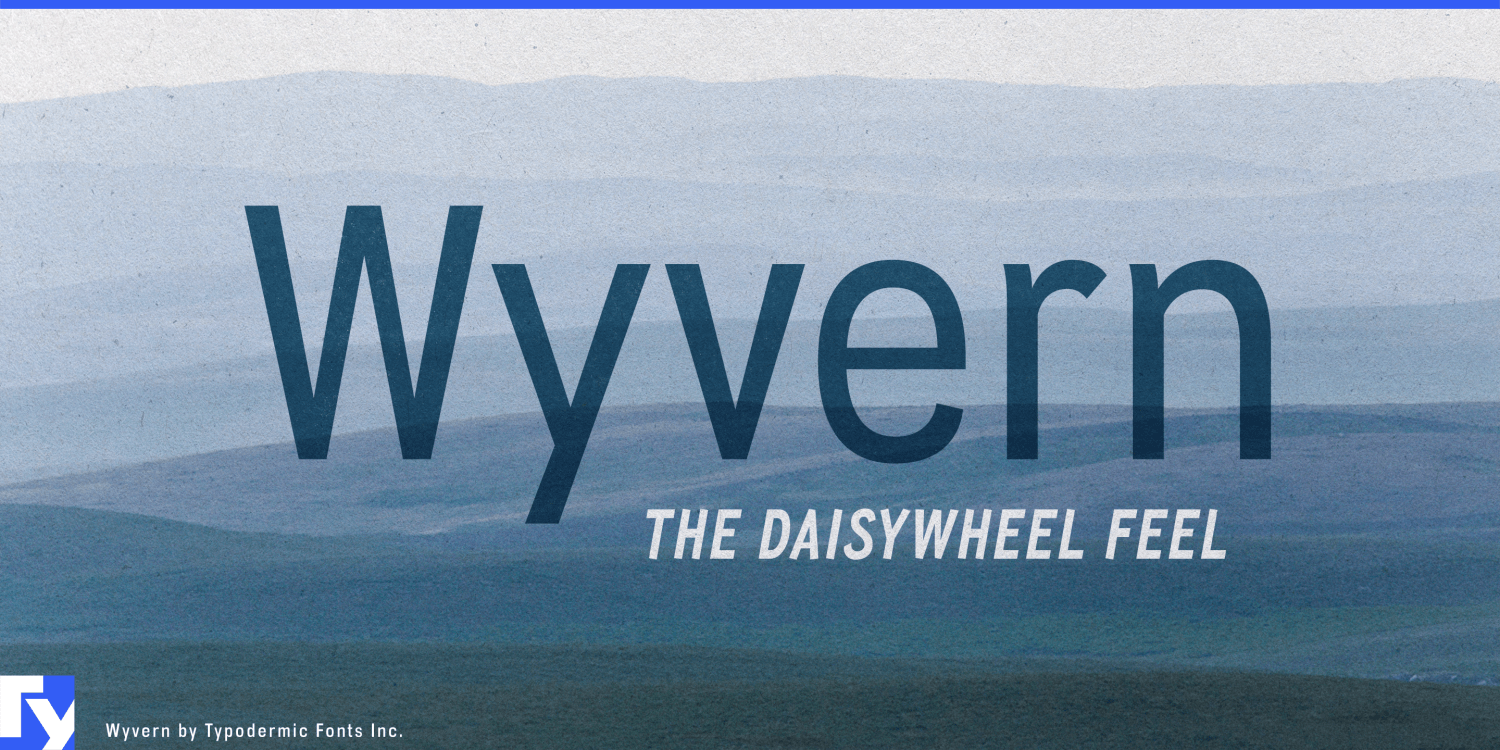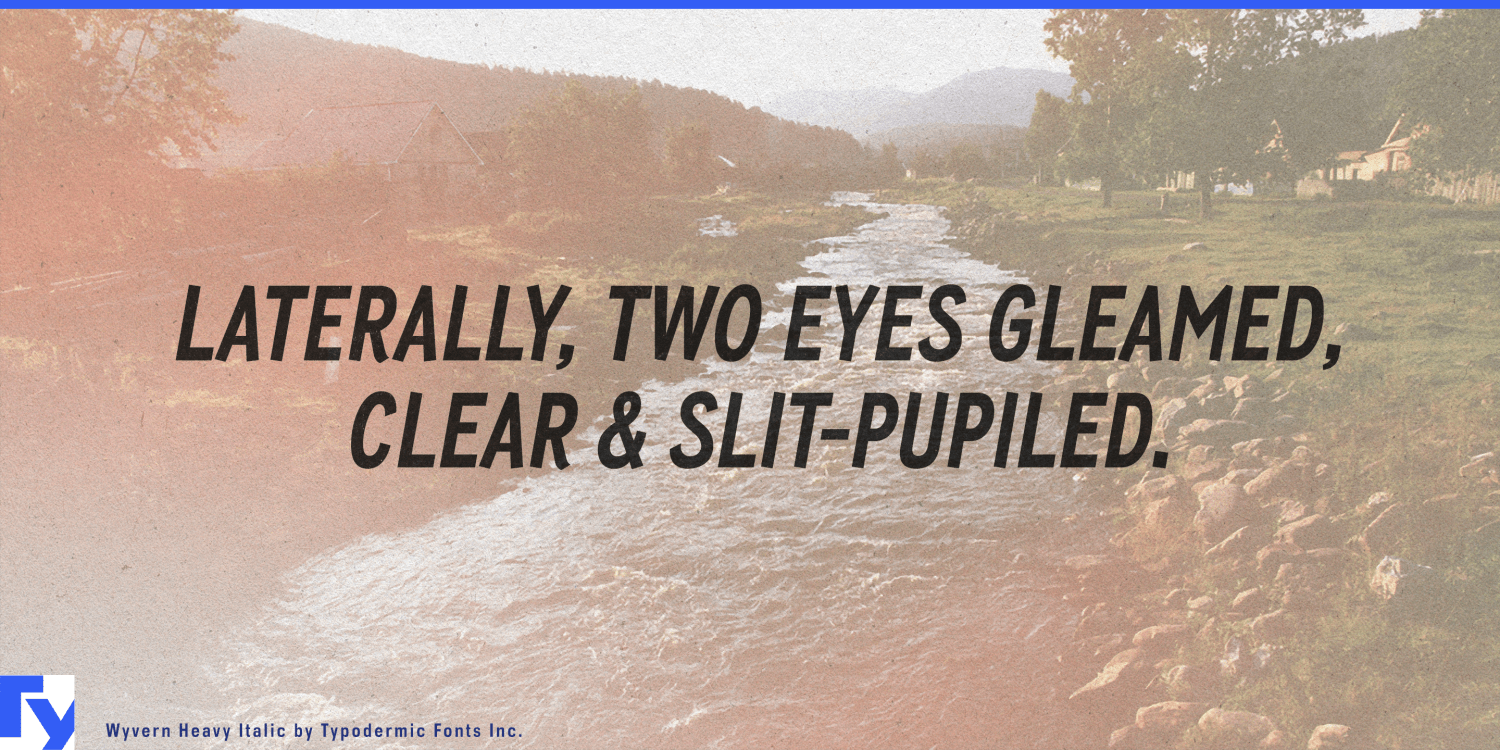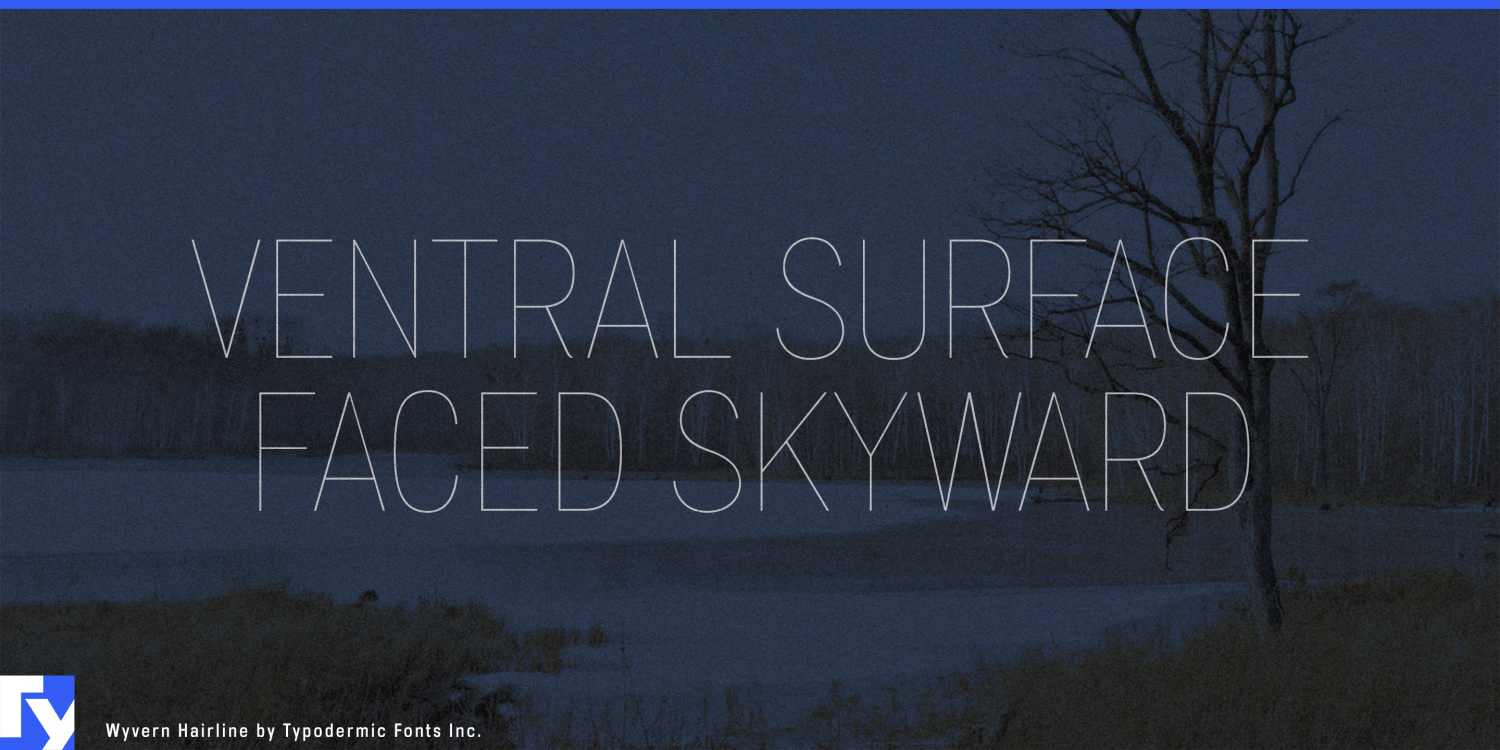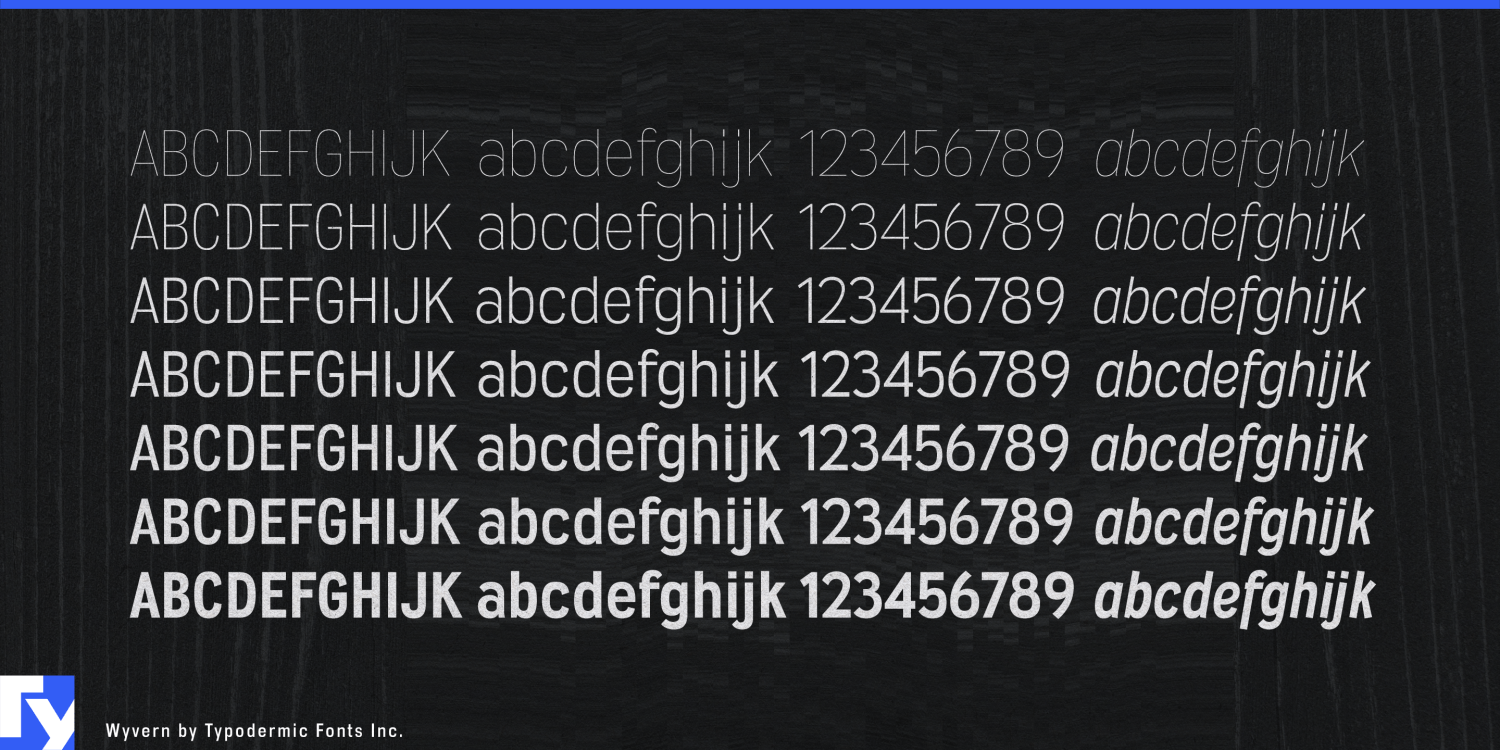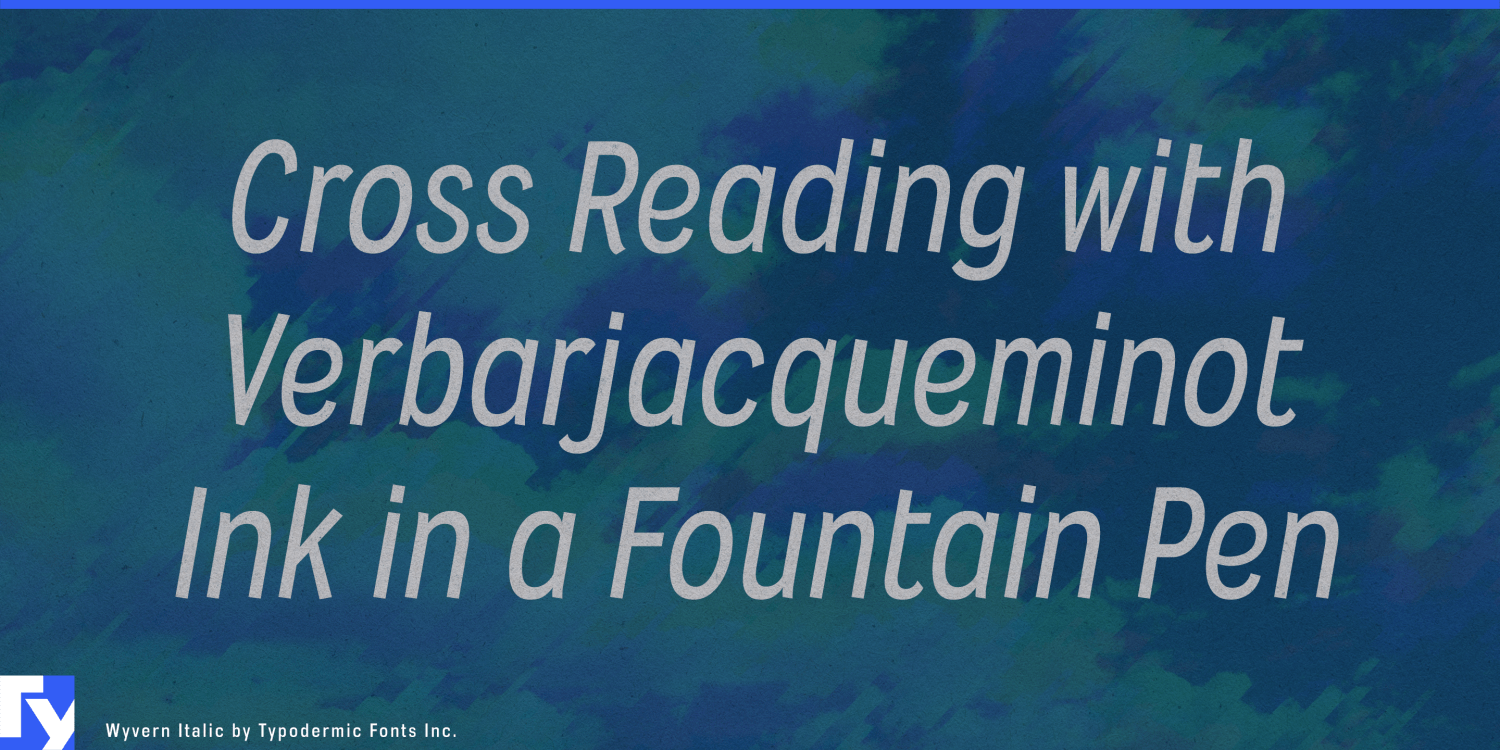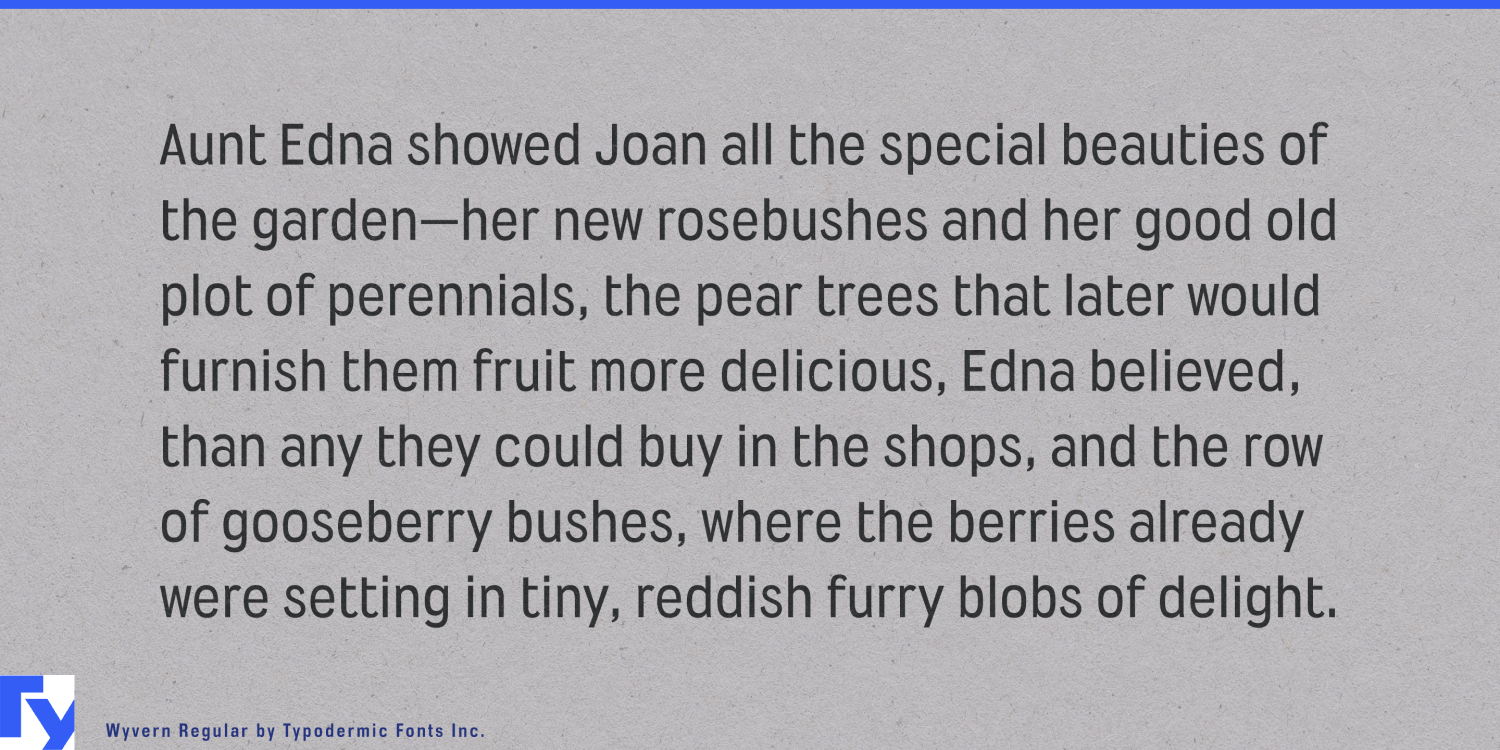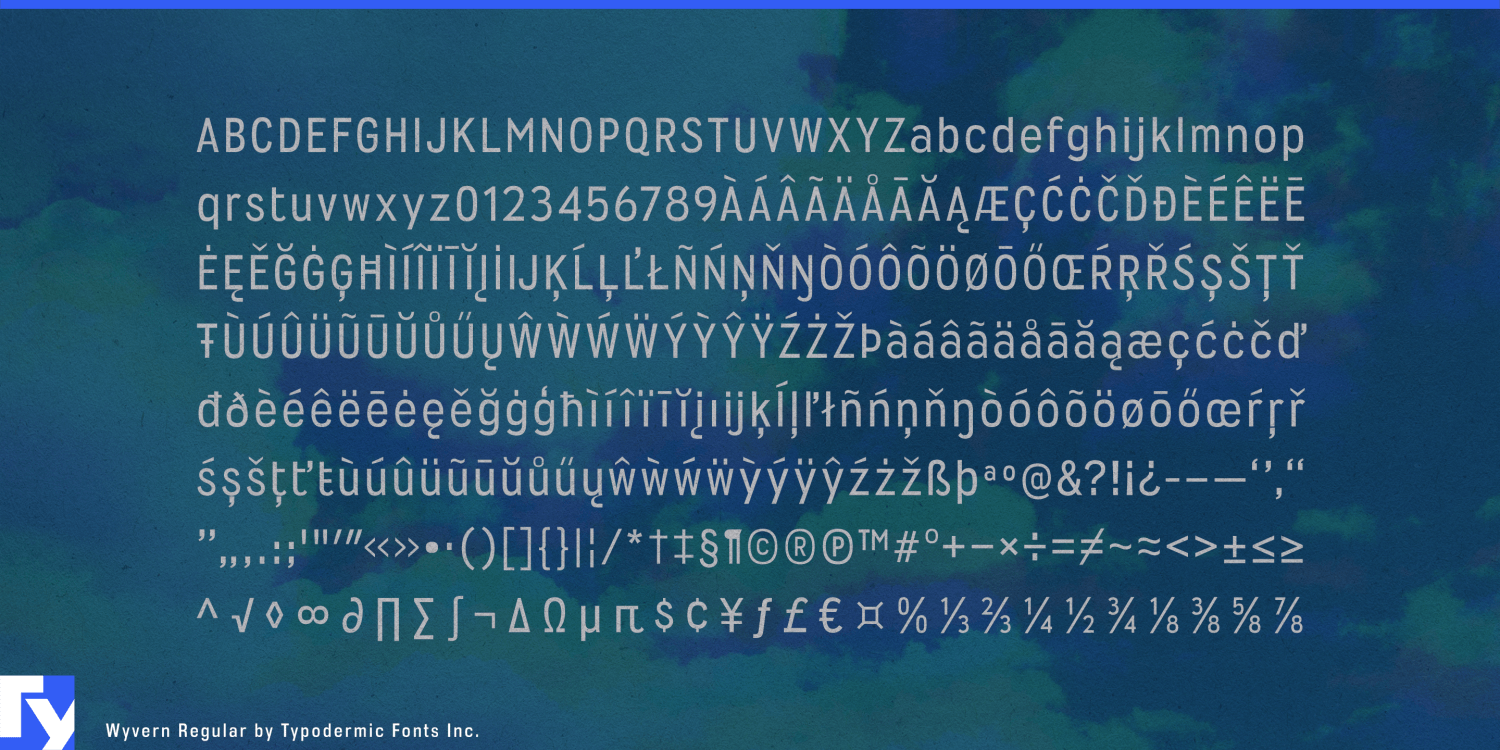
Wyvern
Wyvern is for situations where monospaced typography communicates the right world but creates the wrong typography.
Its origins lie in a commission for something related to Letter Gothic but proportionally spaced and distinctly different. That starting point left Wyvern with the clipped, functional atmosphere of typed technical material while freeing it from the equal-width grid. It can suggest reports, instrumentation, procedures and recorded information without making every paragraph look like source code or a typewriter transcript.
That makes Wyvern especially useful for test and measurement equipment, industrial automation and technical documentation. Oscilloscopes, calibration instruments, environmental sensors, laboratory analyzers, machine-vision systems and robotics all generate product names, datasheets, application notes, service guides and trade-show graphics that need an engineering character without the bulk and rigidity of a monospace. A true monospaced companion can still handle readings, code and aligned tables where equal character widths perform an actual job.
Engineering reports, inspection findings, infrastructure studies and maintenance documents offer a similar fit. Wyvern can handle report titles, section headings, project identifiers, captions and short explanatory passages while retaining a trace of typed procedural documentation. Cybersecurity and digital-forensics reports benefit for the same reason: the type feels analytical and recorded without slipping into familiar hacker imagery.
The italics bring considerably more movement than the restrained uprights, making them useful for model names and emphatic display text. Wyvern Ink, Steel and Blocko extend the family into rougher procedural graphics, evidence displays and fictional case-file material.
Wyvern keeps the technical character of a typewritten sans-serif while removing the spacing constraint that made sense for the machine. The result is better suited to information that needs to look recorded, measured and procedural while still being comfortably read.